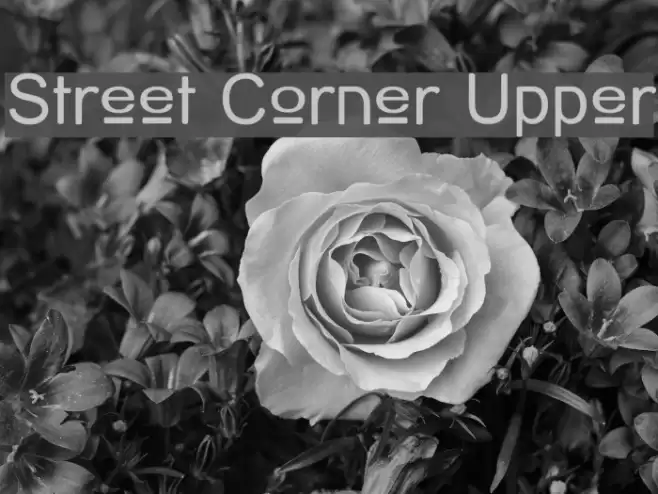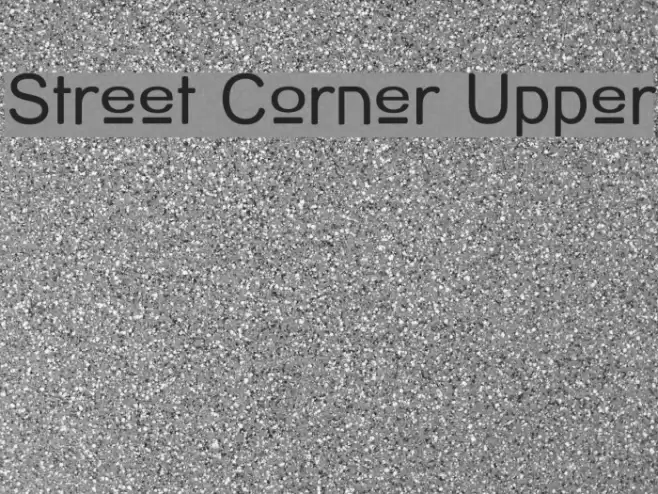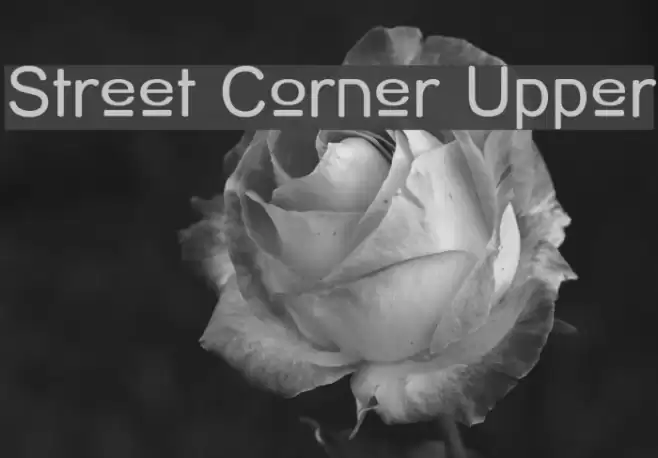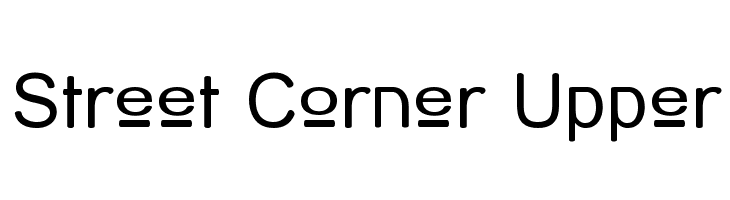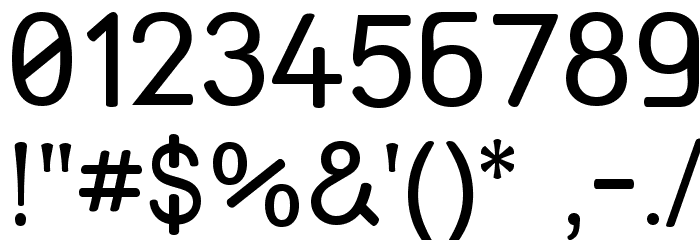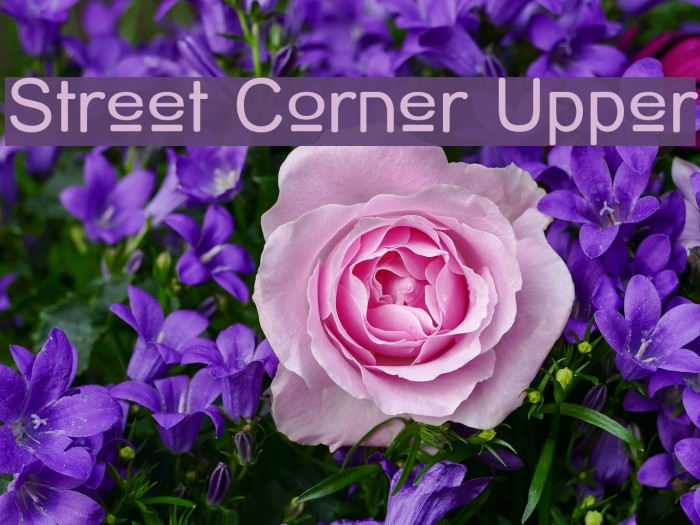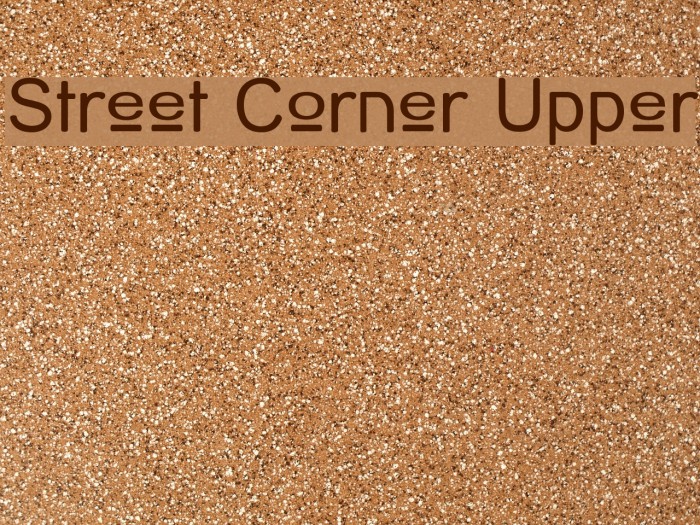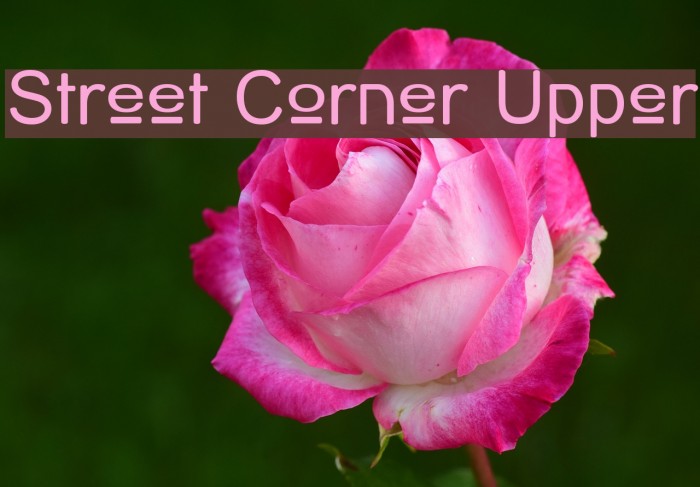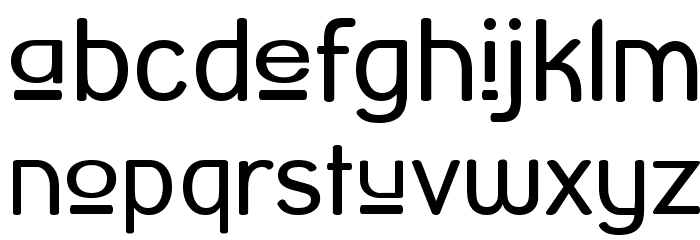
Street Corner Upper Font
Street Corner Upper Description
This font features a clean and modern sans-serif design with rounded edges, giving it a friendly and approachable appearance. The characters are evenly spaced, contributing to its readability. The uppercase letters are bold and assertive, while the lowercase letters maintain a consistent height, enhancing the uniformity of the text. The numerals are clear and distinct, making them easily legible. Special characters are well-integrated, maintaining the overall aesthetic of the font. Its simplicity and clarity make it suitable for a wide range of applications.
A modern, rounded sans-serif font with clean lines and balanced spacing from Sans Serif fonts.
- Proposed Projects: Ideal for branding, signage, digital interfaces, and print media where clarity and modernity are desired.